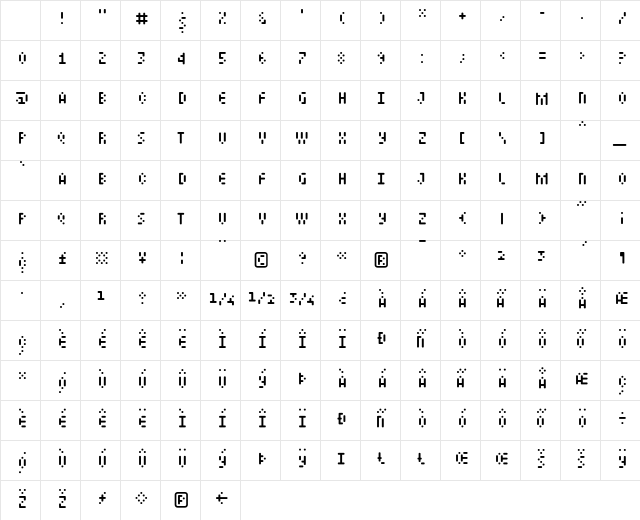
Mastertext Light Free Font
Mastertext Light
Design Context for Mastertext
Mastertext is a composed and adaptable typeface that performs quietly and consistently across a wide range of design contexts. Its slender proportions lend an understated elegance to any composition.